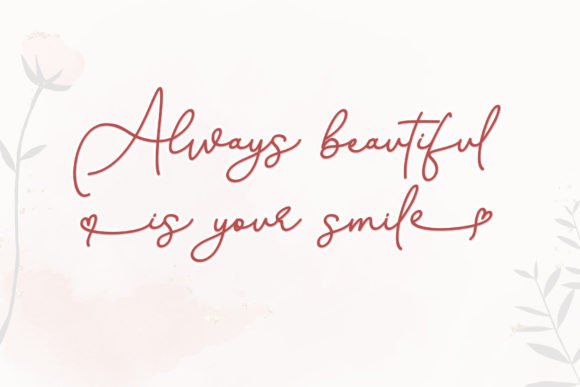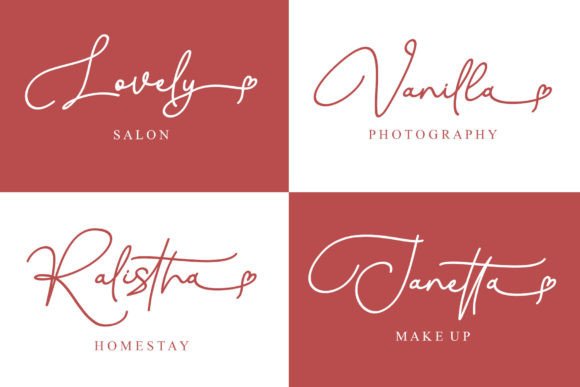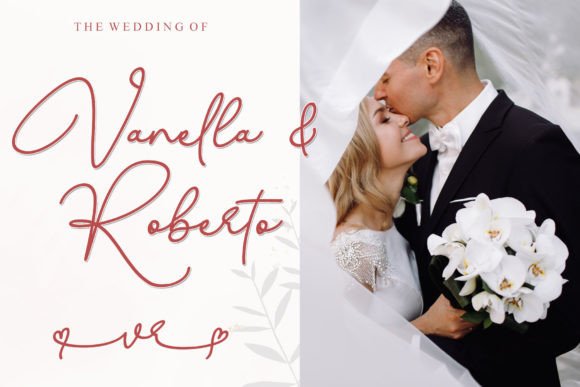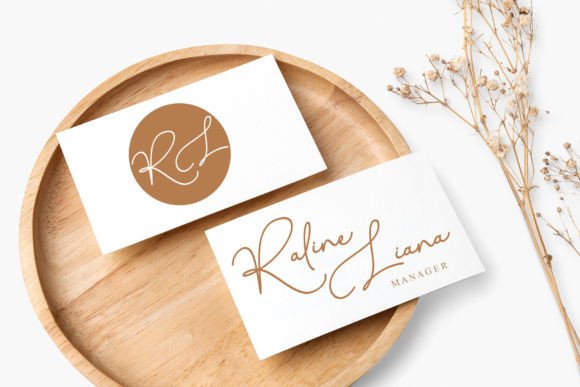
Alywita Love Font: A Charming Handwritten Font for Creative Projects
Are you a designer or crafter looking for a unique and lovely font to add a personal touch to your creative projects? Look no further than the Alywita Love Font, a beautiful handwritten font that is sure to capture your heart. In this article, we’ll explore the features and benefits of this stunning font, and show you how it can be used to elevate your designs and crafts.
What is Alywita Love Font?
Alywita Love Font is a gorgeous handwritten font that is characterized by its dancing characters that move along the baseline. This creates a playful and whimsical feel that is perfect for a variety of creative projects. The font is highly versatile and can be used for a range of applications, including logos, wedding invitations, headings, t-shirts, letterhead, signage, labels, news, posters, badges, and more.
Key Features of Alywita Love Font
So, what makes Alywita Love Font so special? Here are some of its key features:
- Handwritten style: Alywita Love Font has a beautiful, handwritten style that adds a personal touch to any design or craft project.
- Dancing characters: The font’s characters dance along the baseline, creating a playful and whimsical feel.
- PUA encoded: Alywita Love Font is PUA (Private Use Area) encoded, which means that you can access all of the glyphs and swashes with ease.
- Highly versatile: The font can be used for a wide range of creative projects, from logos and wedding invitations to t-shirts and posters.
Benefits of Using Alywita Love Font
So, why should you choose Alywita Love Font for your creative projects? Here are some of the benefits of using this lovely font:
- Adds a personal touch: The handwritten style of Alywita Love Font adds a personal touch to any design or craft project, making it perfect for projects that require a human touch.
- Easy to use: The font is PUA encoded, making it easy to access all of the glyphs and swashes.
- High-quality design: Alywita Love Font is designed to high standards, ensuring that your creative projects look professional and polished.
- Unique and creative: The font’s dancing characters and handwritten style make it a unique and creative choice for designers and crafters.
How to Use Alywita Love Font
So, how can you use Alywita Love Font in your creative projects? Here are some ideas to get you started:
- Logos and branding: Use Alywita Love Font to create a unique and memorable logo for your business or brand.
- Wedding invitations: The font’s elegant and whimsical style makes it perfect for wedding invitations and other special occasion stationery.
- T-shirts and apparel: Use Alywita Love Font to create eye-catching and stylish designs for t-shirts and other apparel.
- Posters and signage: The font’s bold and playful style makes it perfect for posters, signage, and other display materials.
In conclusion, Alywita Love Font is a beautiful and versatile handwritten font that is perfect for designers and crafters looking to add a personal touch to their creative projects. With its dancing characters, PUA encoding, and highly versatile design, this font is sure to become a favorite in your font collection. So why not give it a try and see how it can elevate your designs and crafts?
Tips and Tricks for Using Alywita Love Font
Here are some tips and tricks for getting the most out of Alywita Love Font:
- Experiment with different sizes and colors: Try out different sizes and colors to see how they affect the overall look and feel of your design or craft project.
- Combine with other fonts: Alywita Love Font pairs well with other fonts, so try combining it with a bold or serif font to create visual interest.
- Use the glyphs and swashes: Take advantage of the font’s PUA encoding to access the glyphs and swashes, which can add an extra level of creativity to your design or craft project.